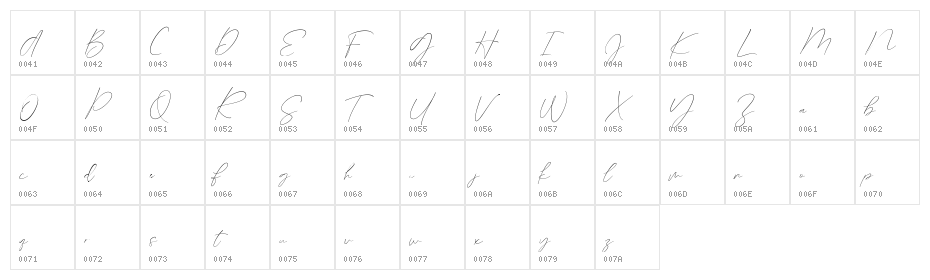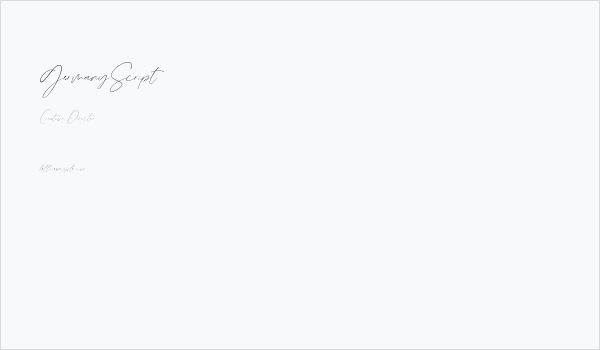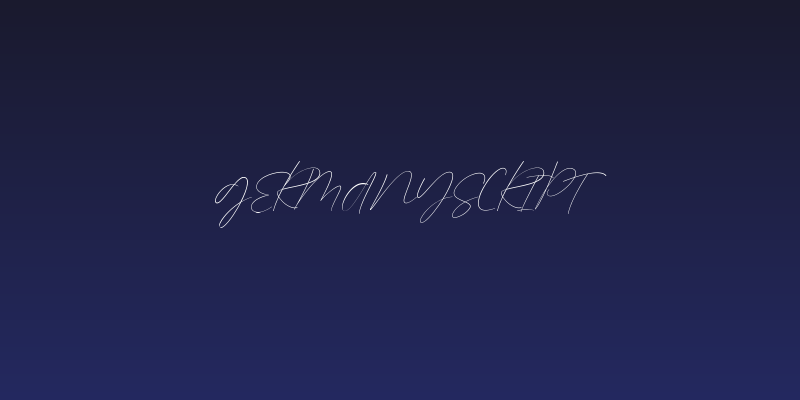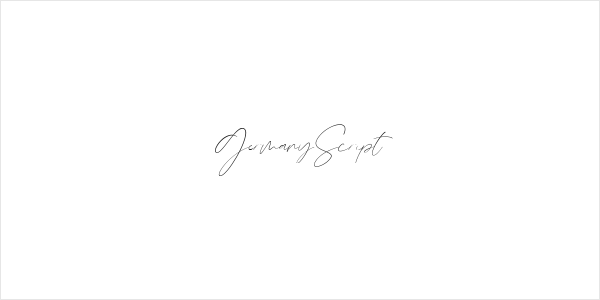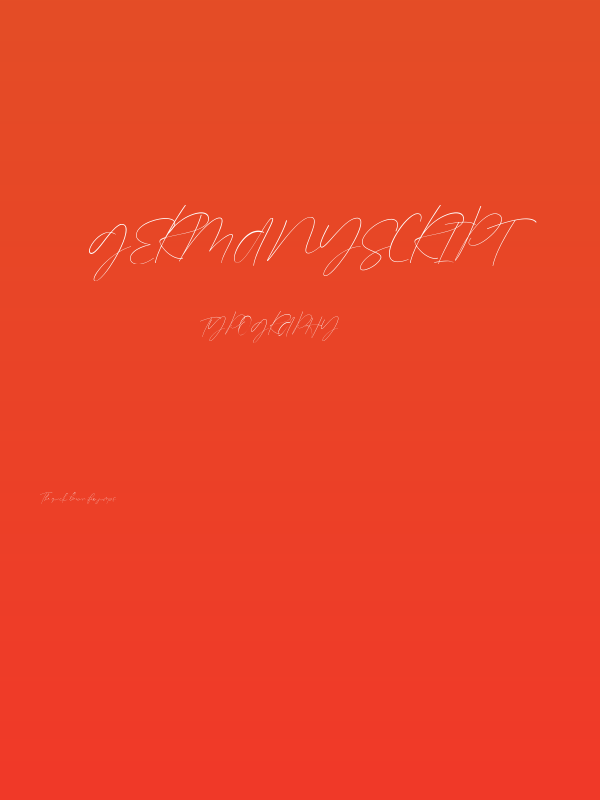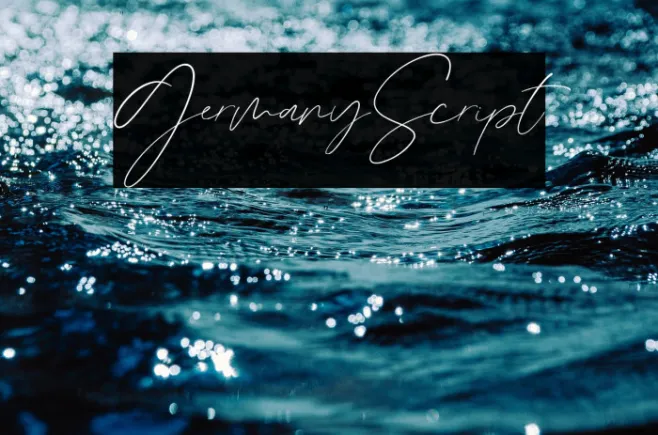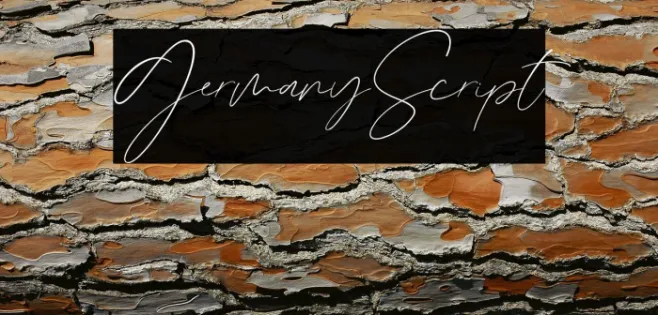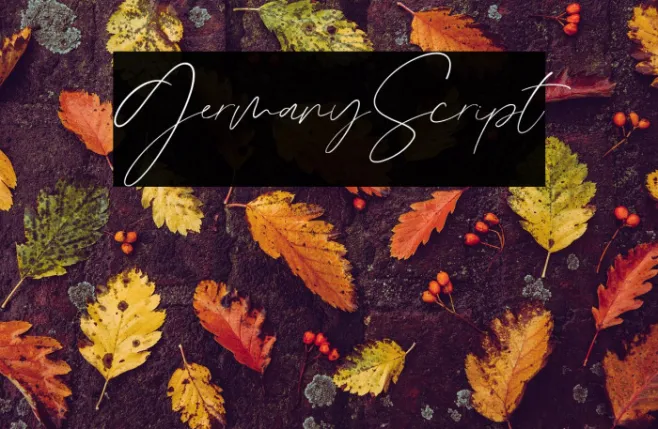
GermanyScript Font
GermanyScript Description
This font exudes a sophisticated and elegant handwritten style, characterized by its fluid and continuous strokes. The letters are interconnected, creating a seamless flow that mimics natural handwriting. The thin lines and delicate curves give it a graceful appearance, making it suitable for formal and artistic applications. The uppercase letters maintain a consistent height, while the lowercase letters exhibit a slight slant, enhancing the script's dynamic quality. The overall design is airy and light, with ample space between characters, ensuring readability while maintaining its artistic flair.
| Overall Style | Elegant, Artistic |
| Use Case | Invitations, Branding, Artistic projects |
| Proposed Projects | Ideal for wedding invitations, personal branding, elegant stationery, and artistic projects. |